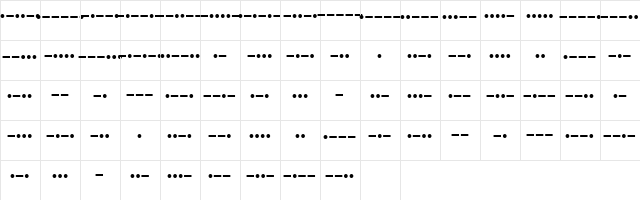
XInterntnlMorseCodeIT Regular
Design Context for XInterntnlMorseCodeIT Typeface
XInterntnlMorseCodeIT brings the precise, column-aligned rhythm of monospaced typography to designs that value technical clarity and systematic order.
A natural fit for code editors, technical documentation, developer-focused branding, and terminal-inspired UI.
Pro Tip: Pair XInterntnlMorseCodeIT with a proportional sans for UI contexts where code-style labels and regular body copy need to coexist.